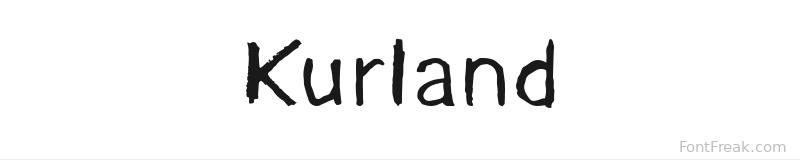
Kurland
Kurland, designed by GGBot, is a unique handwritten font that captures an artistic and whimsical essence, making it an excellent choice for a variety of creative projects. As a display font, Kurland features a playful style characterized by its irregular stroke weights and a charming, organic feel. The font exhibits a medium contrast, with thick and thin lines that create a lively rhythm, while the spacing between characters is open enough to enhance readability without sacrificing its artistic flair. The slightly rough edges add to its handmade quality, making it visually appealing for informal and creative applications.
Kurland is ideal for a range of use cases, including wedding invitations where a personal touch is desired, movie posters that aim for an eye-catching aesthetic, restaurant menus that want to convey a casual vibe, greeting cards that need a warm and inviting style, and branding materials for small businesses looking to stand out in a crowded market. The font's versatility makes it particularly appealing to graphic designers, content creators, and small business owners who wish to infuse their work with a sense of individuality and creativity.
The Kurland font free download provides an accessible opportunity for users to incorporate this distinctive typeface into their projects without any financial burden. What sets Kurland apart is its ability to blend a casual, handwritten appearance with a polished finish, offering the best of both worlds. It brings a sense of authenticity and charm that can elevate any design, making it a must-have for anyone looking to add a touch of personality and flair to their work.